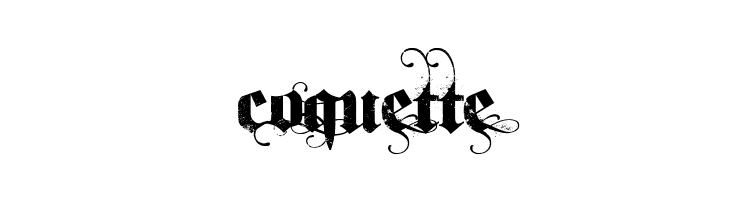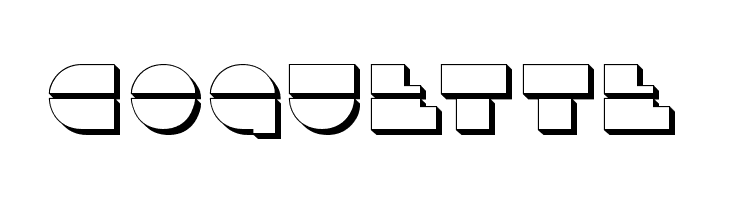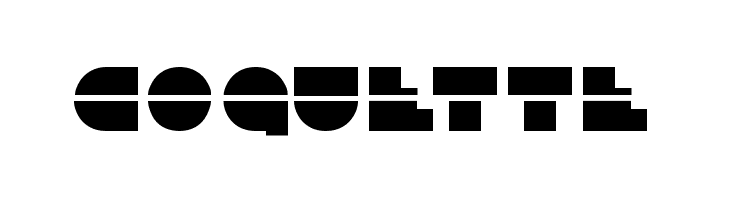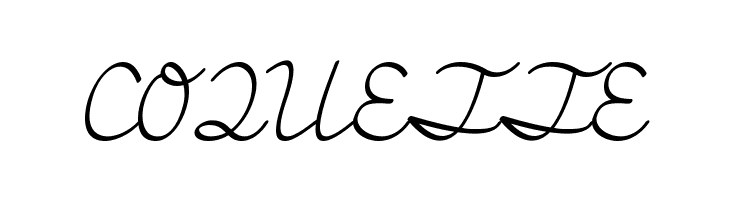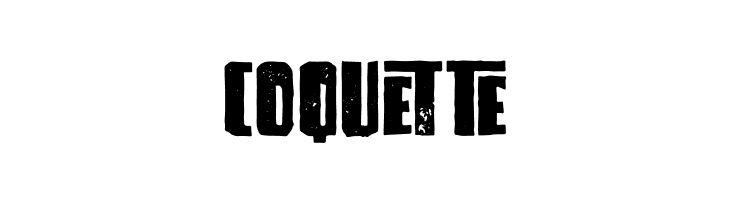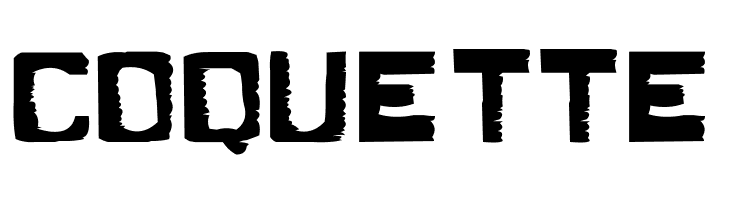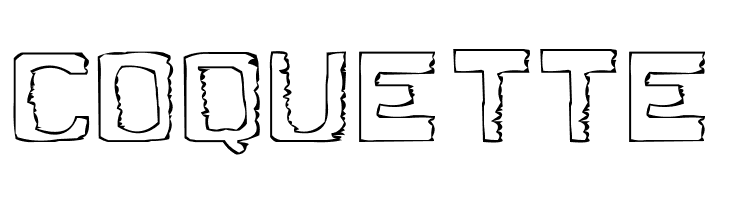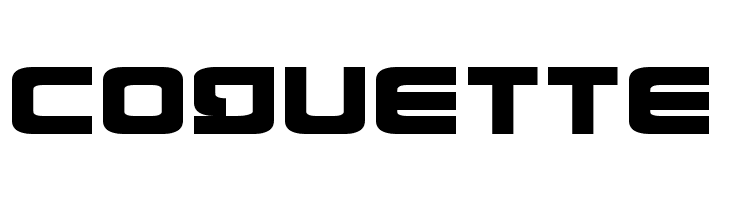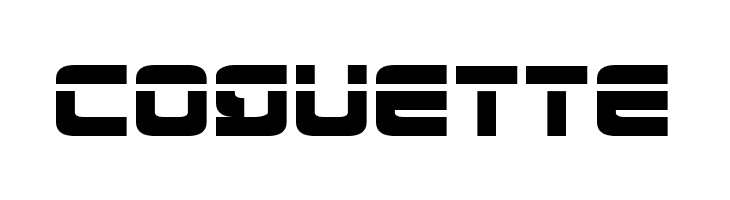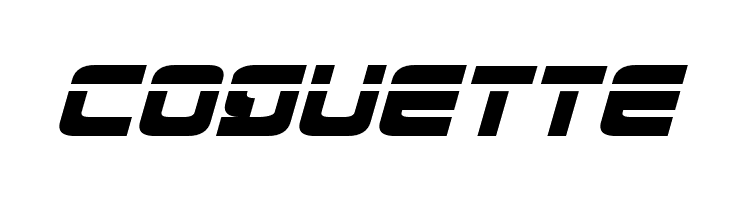
• Direktor Condensed
A bold, geometric, and condensed font with a modern industrial style.
• Direktor Condensed Italic
A bold, condensed, and italic font with a modern, dynamic style.
• Direktor Expanded
A bold, geometric font with expanded width and rounded corners, perfect for modern headlines.
• Direktor Expanded Italic
A bold, expanded, and italicized font with a futuristic geometric style.
• Direktor Laser
A bold, futuristic font with geometric, block-like characters.
• Direktor Laser Italic
A bold, italic, futuristic font with sharp angles and a dynamic style.
• Direktor Leftalic
A bold, futuristic font with geometric and slightly slanted characters.
• Direktor Light
A modern, geometric font with clean lines and uniform structure.
• Direktor Light Italic
A sleek, modern italic font with geometric precision and tight spacing.
• DirektorItalic
A bold, italic, and futuristic font with geometric shapes and sharp angles.
• Dirt2 SoulStalker - Dirt2.com
A gothic and grunge font with ornate flourishes and distressed textures.
• Dirtee
• DIRTY DRAGS Free Trial
A bold, distressed font with a vintage, textured style.
• Dirty Dung
• Dirty Dung Solid
• Dirty Headline
A bold, distressed font with a gritty, vintage appearance.
• Dirty Old Town
A rugged, distressed font with a vintage, weathered appearance.
• DIRTY ROCK Free Vesion
A bold, distressed font with a gritty, rock-inspired aesthetic.
• DIRTY SOCKS SKINNY
A bold, distressed font with a grunge, textured appearance.
• dirty sox
A bold, rugged font with a distressed, hand-crafted appearance.
• DIRTY_HAND_OF_CRE
A playful, hand-drawn font with irregular strokes and a casual, informal style.